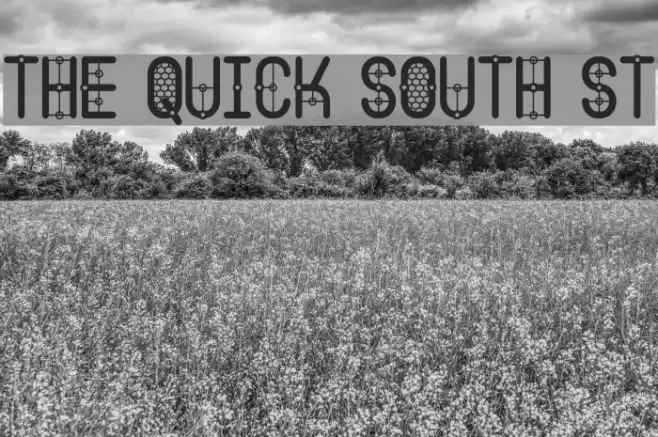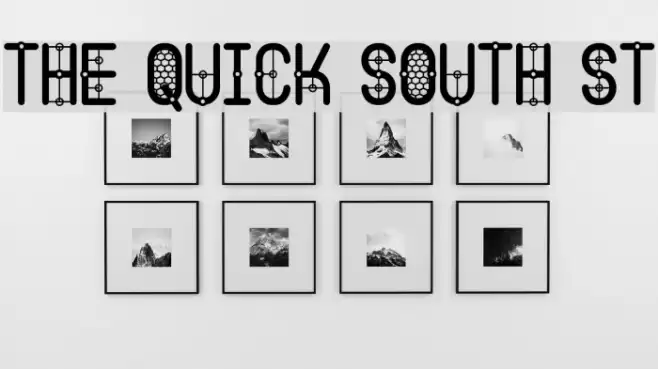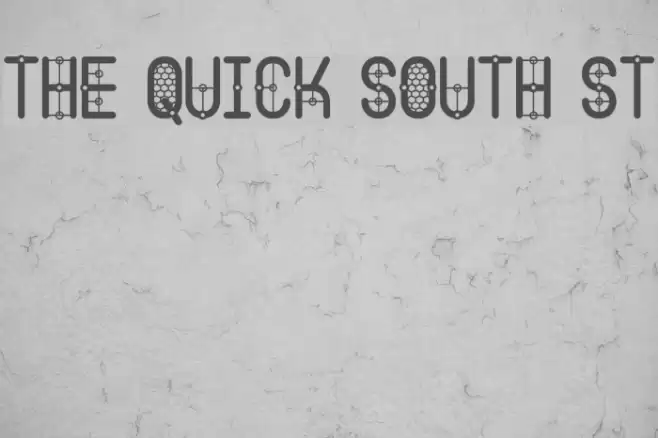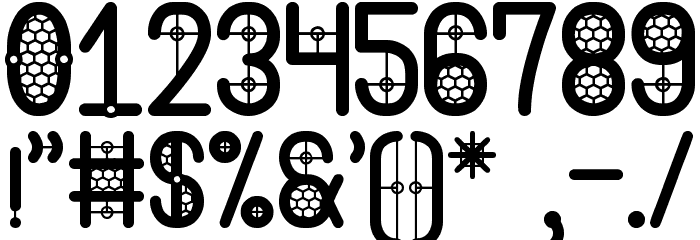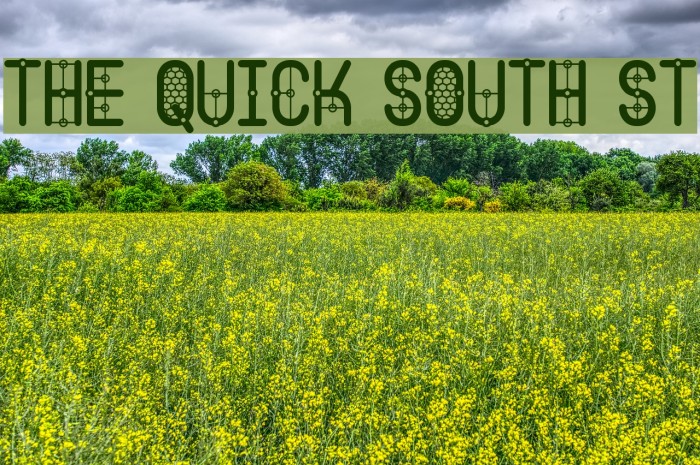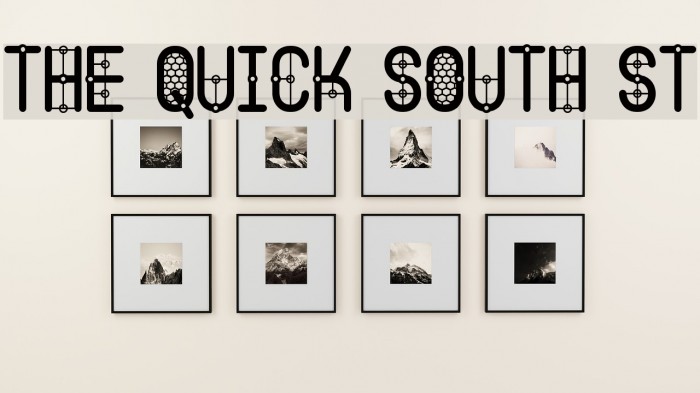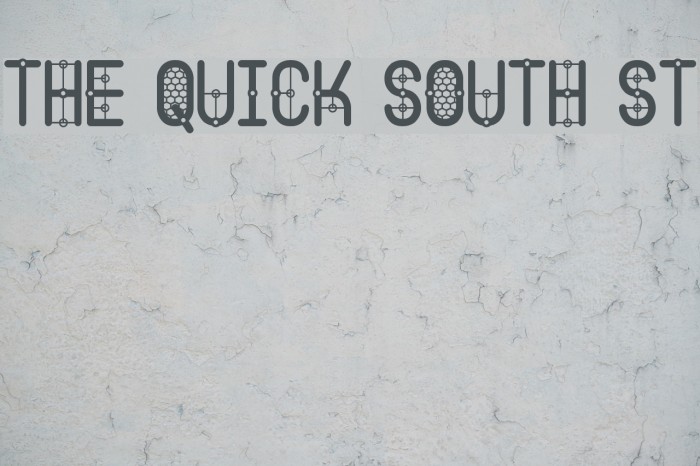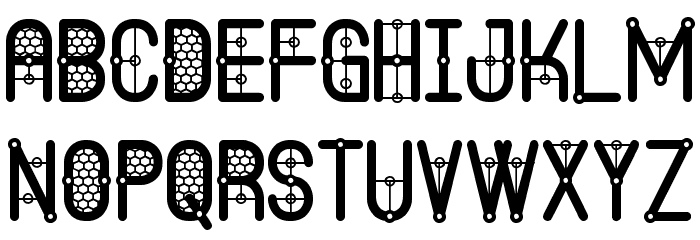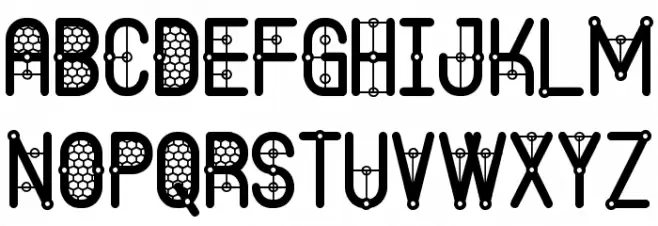
The Quick South St Font
The Quick South St Description
This font features a unique and intricate design with a blend of geometric shapes and patterns within each character. The letters are constructed with bold, solid lines and are embellished with circular and hexagonal motifs, giving them a distinct, decorative appearance. The uppercase and lowercase letters maintain a consistent style, with the lowercase being slightly smaller in size but equally detailed. Numbers and special characters follow the same design principles, ensuring a cohesive look across all elements. The font's artistic flair makes it stand out, ideal for creative and eye-catching projects.
A decorative font with geometric patterns and bold lines from Uncategorized fonts.
- Proposed Projects: Ideal for posters, album covers, branding, and any project requiring a bold, artistic touch.
- Overall Style: Modern, Decorative